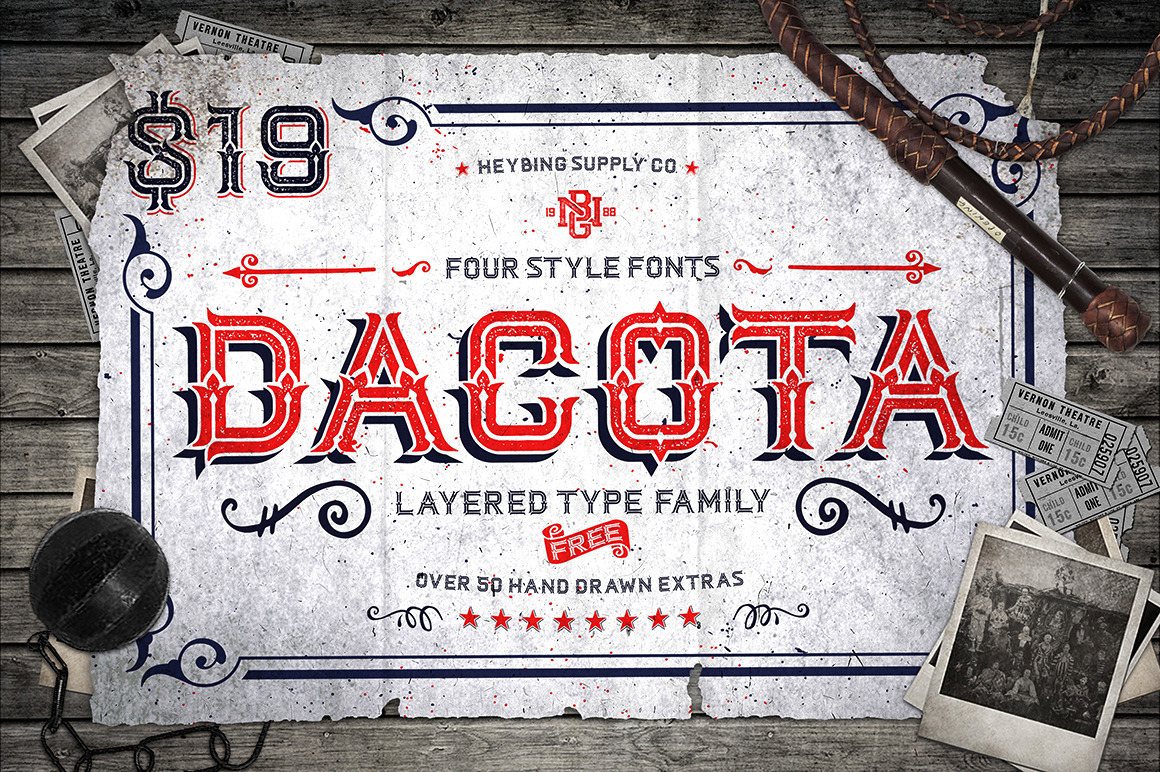
Dacota Layered Typeface + Extras
Dacota Typeface is a layered type family, Inspired by vintage american west poster and circus poster that have a strong shapes so it will create more attention for people to look more closely. Comes with 4 font system that can be layered to create different effect (basic, rough , dropline & dropshadow).
Dacota Typeface includes a full set of capital and lowercase letters, as well as multi-lingual support, currency figures, numerals, and punctuation.
- Layered font system
- Character Set A-Z
Dakota Typeface family best for logotype, gig poster, letterhead, dropcap, titles, and any artworks.